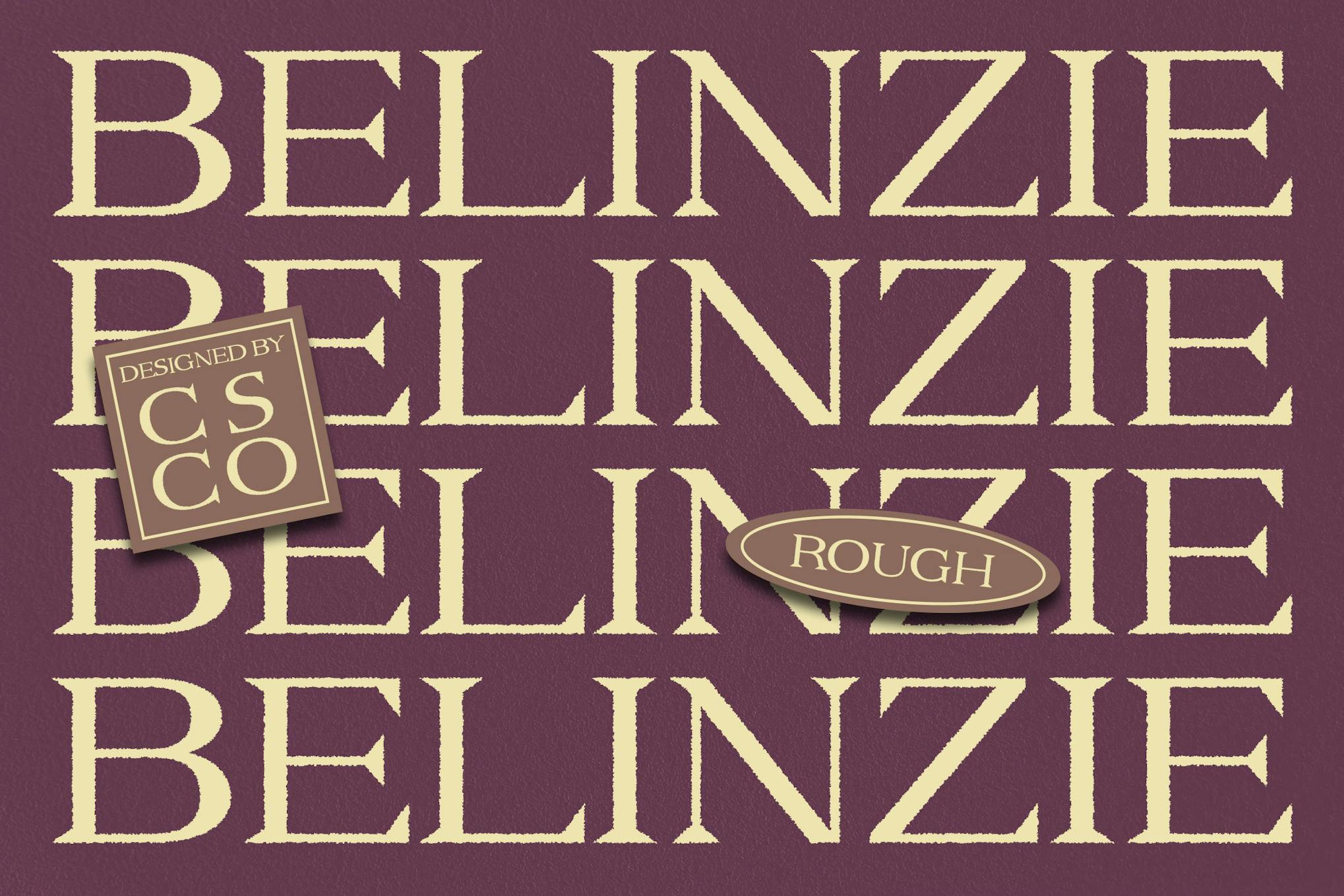
Belinzie Rough Font
The Belinzie Rough Font is perfect for vintage poster design, distressed branding, weathered packaging labels, craft product marketing, rustic restaurant signage, grunge band merchandise, artisan business logos, and authentic handmade promotional materials.
What makes Belinzie Rough Font so exciting is its masterful combination of organic texture and artistic character that brings genuine personality and authentic charm to every design application. This remarkable typeface features naturally distressed edges with carefully crafted imperfections that mirror the beautiful wear patterns found in vintage signage and hand-painted lettering. The font's sophisticated rough texture creates immediate visual interest while maintaining the perfect balance between readability and character, making it ideal for brands that want to convey craftsmanship, authenticity, and timeless appeal. Its distinctive weathered appearance instantly adds depth and storytelling power to modern designs, transforming ordinary communications into compelling visual narratives that resonate with audiences seeking genuine authenticity.
The Belinzie Rough Font family includes comprehensive variations designed to meet diverse creative requirements while maintaining consistent rough character throughout. The collection typically features multiple weights from Light to Bold, each preserving the signature distressed characteristics and organic texture flow. Many versions include italic variations with enhanced weathering effects, alternative characters featuring varied distression patterns, decorative ligatures that maintain the handcrafted feel, and extended character sets supporting multiple languages for international design projects.
The font's remarkable versatility shines across all design mediums, from digital applications to traditional print materials. Its carefully engineered distressed texture maintains clarity and impact at various sizes while preserving the distinctive rough character that makes it so appealing to contemporary audiences seeking authentic design elements.
Creative professionals across industries trust this distinctive rough font for projects requiring genuine character and artistic sophistication. Whether developing brand identities for artisanal companies, creating packaging design for craft products, or designing promotional materials for creative agencies, this font delivers the perfect combination of authentic weathered beauty and modern functionality that elevates every creative project.